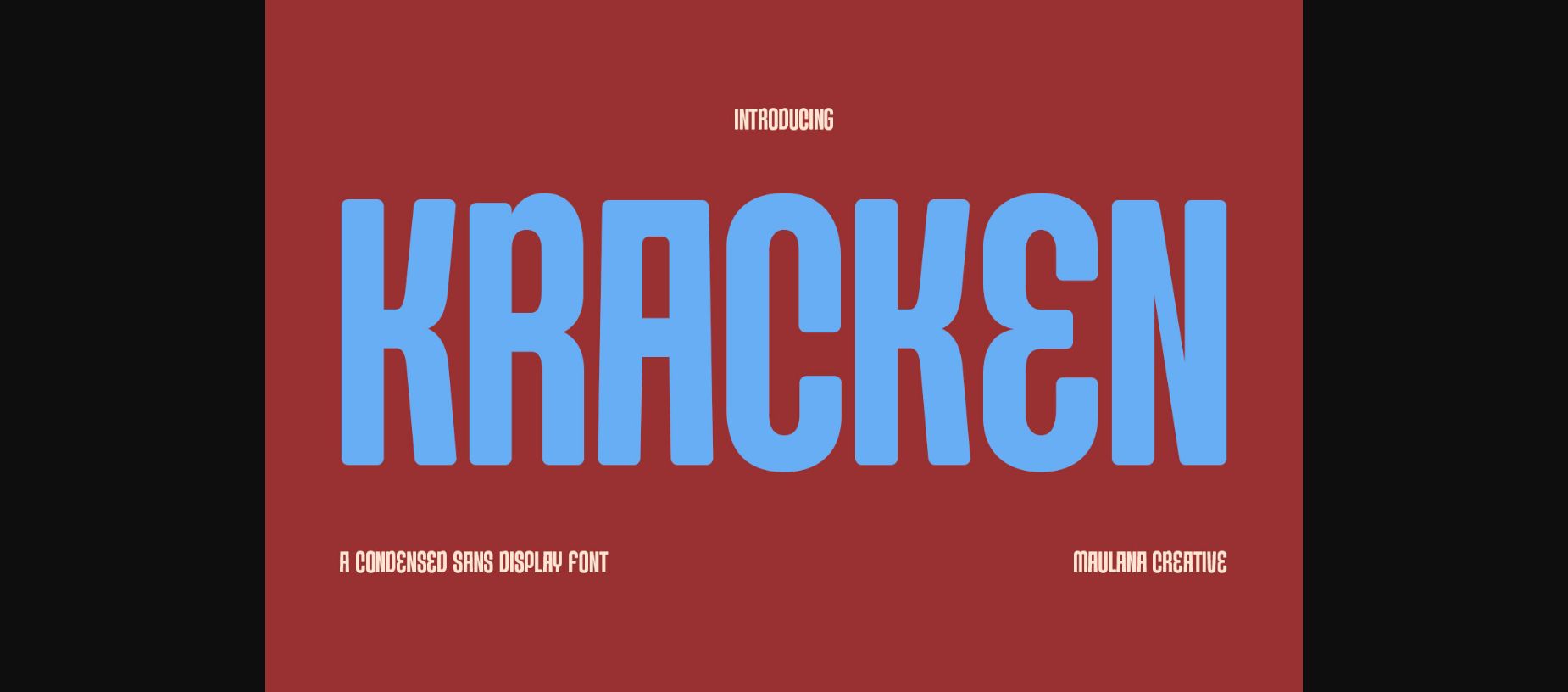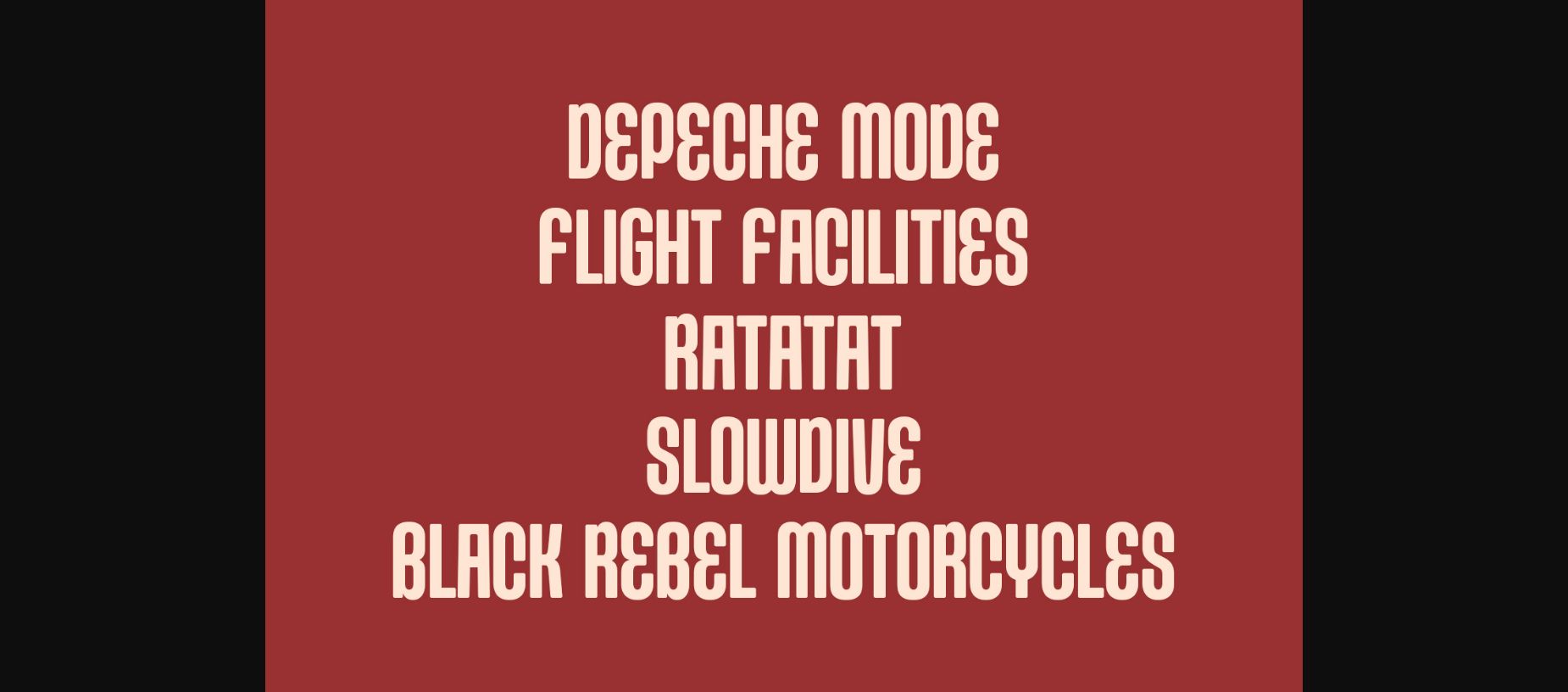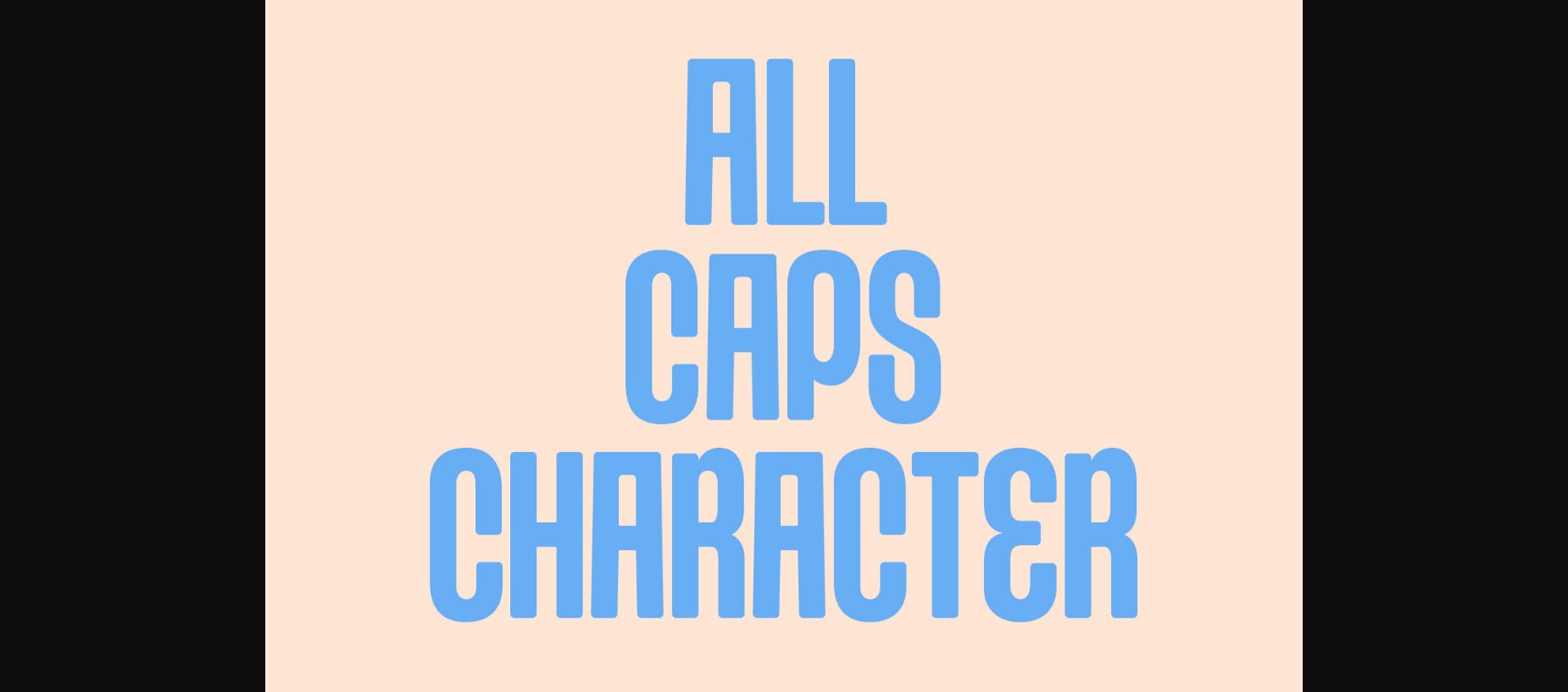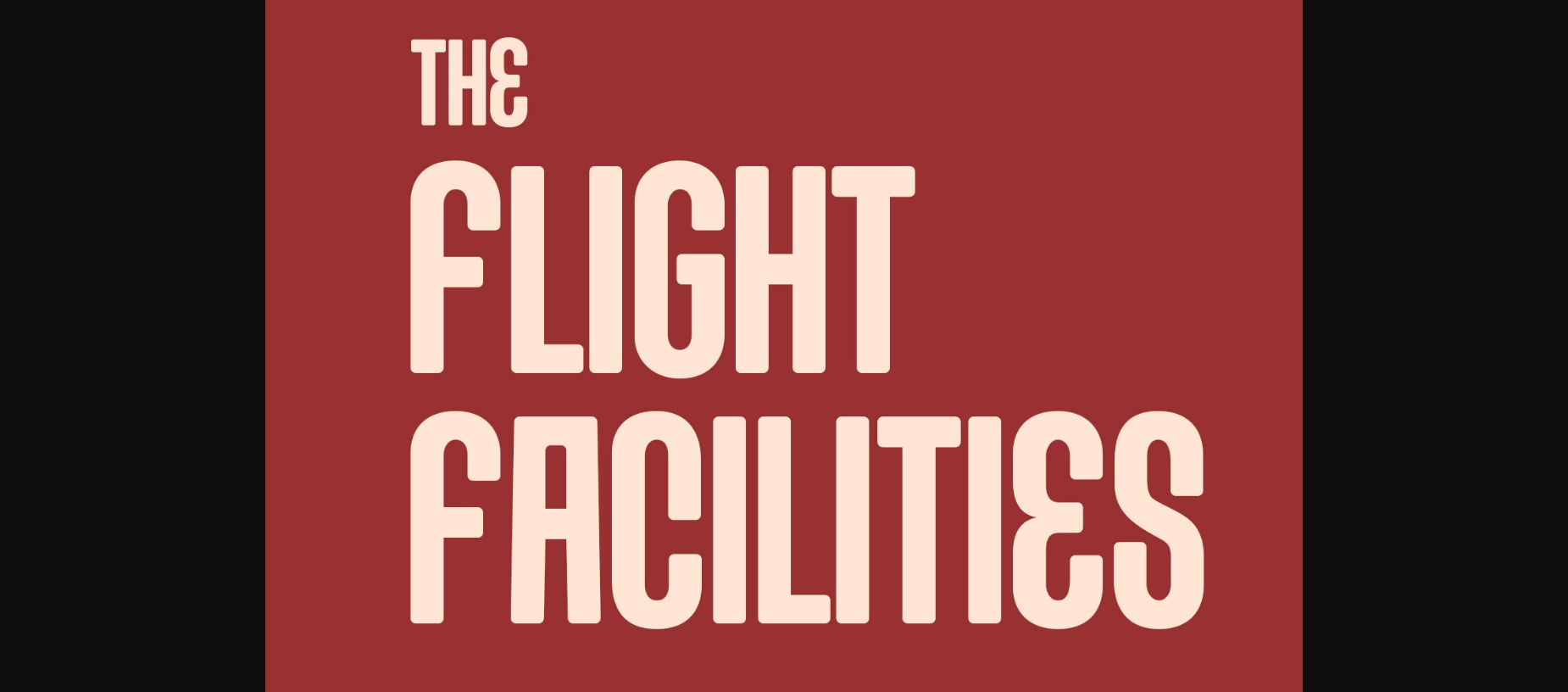
Kracken Font
About Kracken Font
Kracken is a soft unique and condensed sans serif font. This font is good for logo design, social media, movie titles, books titles and so much more.